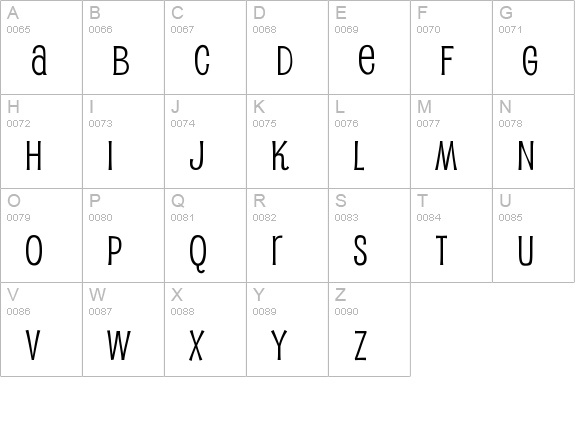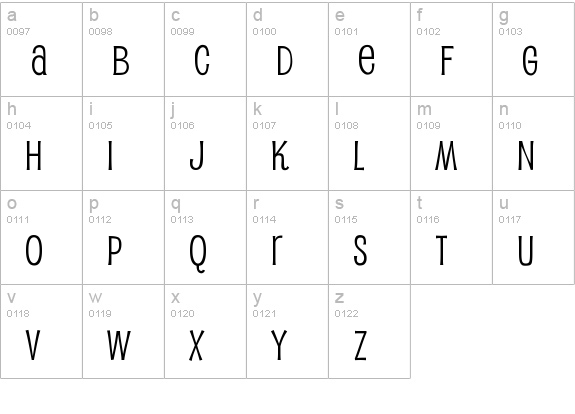
Pupcat Font Details
Pupcat font is a charming and playful typeface that exudes a delightful combination of elegance and whimsy. Its unique design features a harmonious blend of rounded edges and smooth curves, making it perfect for a wide range of creative projects. With its friendly and approachable appearance, Pupcat font adds a touch of warmth to any design it graces. What sets Pupcat font apart is that it is not only visually appealing but also incredibly versatile. Whether you're working on branding, invitations, posters, or any other project that calls for a touch of personality, Pupcat font is sure to make a lasting impression. And the best part? Pupcat font is completely free to download at FontsMarket.com! This means that you can enhance your designs with this delightful typeface without breaking the bank. So why wait? Add a touch of charm to your projects today with Pupcat font.